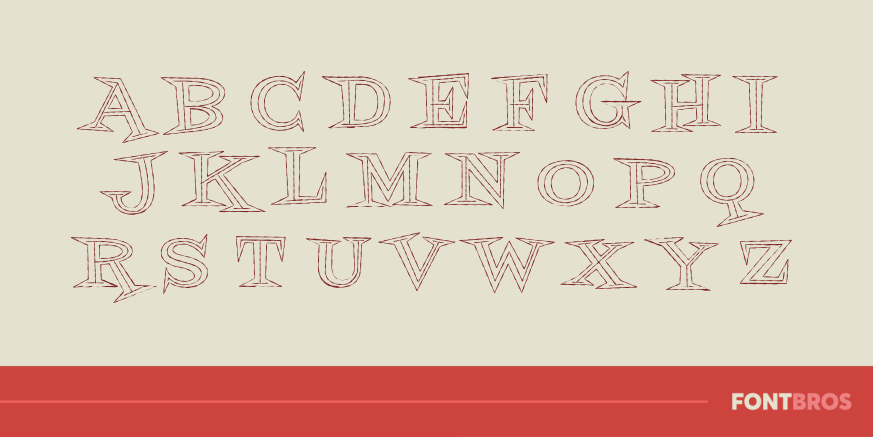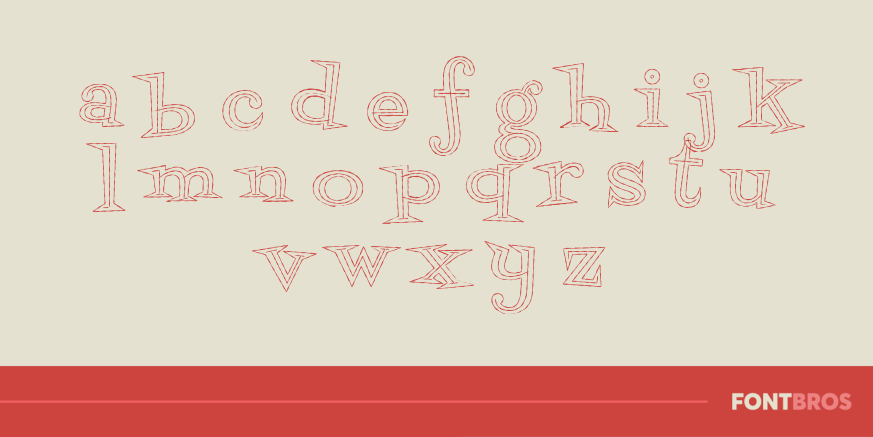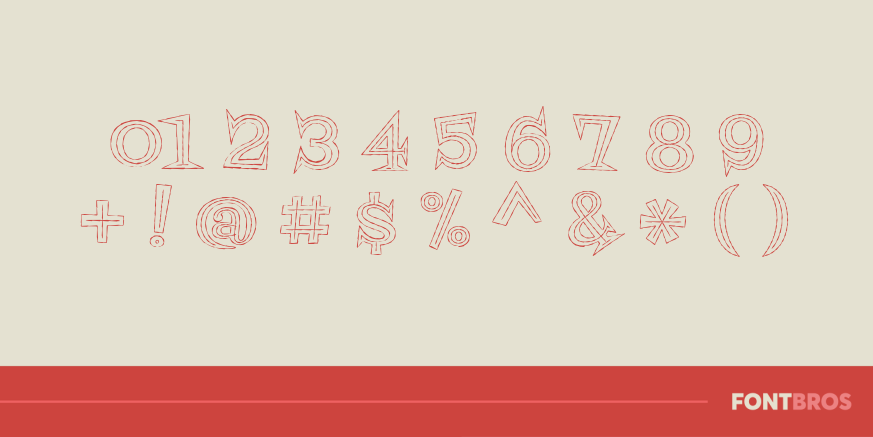
Fontdinerdotcom Jazz Light
Font Family by Font Diner
So, you dig the smooth sounds of Donald Fagan while cruisin' up the Intracoastal? Sounds like you're a fan of Light Jazz! Don't let the Florida heat bother you, grab a cup of cool and chill out.